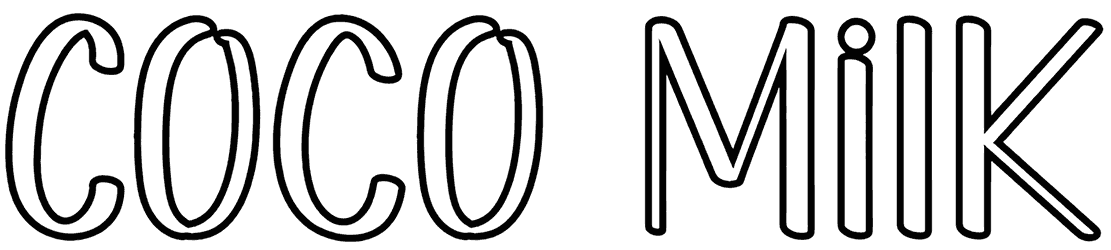
Coco Milk Font
If you’re thinking of designing a font with a calm look, put down the pen and download Coco Milk right now. This outline font has almost invisible letters that can be combined with any background and create a strong feeling.
In addition, its letters are designed in such a way that they induce the feeling of softness and tenderness of a ribbon font. Therefore, to resonate your brand identity in the logo, you can pair it with this font.